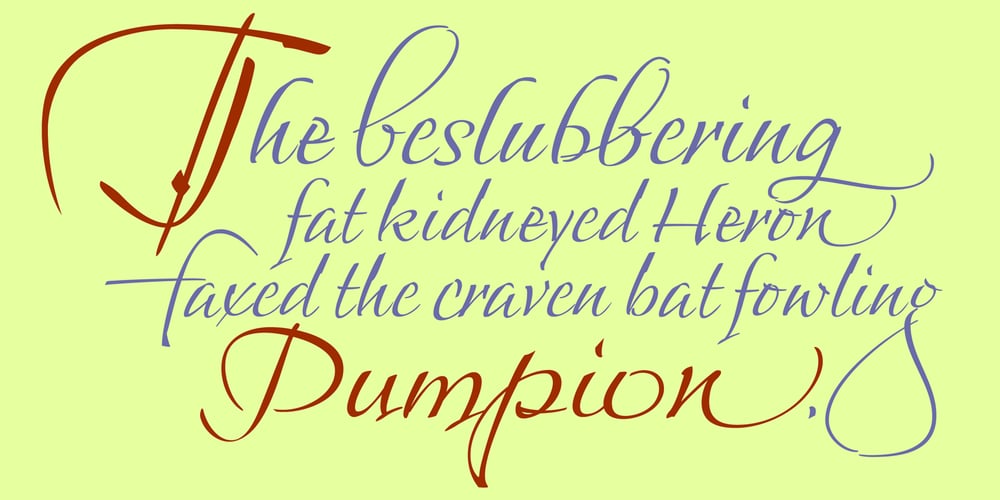
Feverish Font Family was designed by Bill LaFever and published by Veil of Perception. Feverish contains 4 styles and family package options. “Feverish” was a font borne out of perceived need in the marketplace. Hallmark retired font designer and master letter designer Myron McVay first approached Bill LaFever to collaborate on a project to design a semiformal calligraphic script that could be set as text copy with a large variety of swash and alternative characters and small caps. Bill penned the initial forms and Myron did the digital conversions and initial technical work. After Myron passed away, Terry Lee, a protégé of Myron’s at Hallmark, also retired, took over and the project was completed. “Feverish” is a semi-formal italic which can be used in a wide variety of commercial and advertising applications. The font family is large which can accommodate a variety of unique applications.